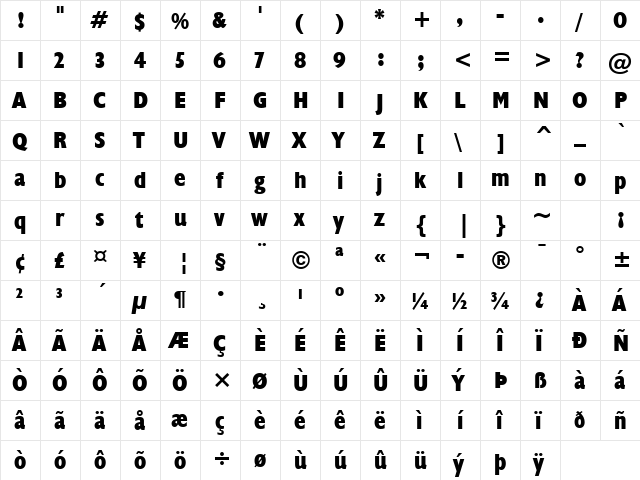
Humanst521 XBdCn BT Extra Bold
Design Context for Humanst521 XBdCn BT Typeface
Humanst521 XBdCn BT is a composed and adaptable typeface that performs quietly and consistently across a wide range of design contexts. The heavy weight commands attention and anchors typographic hierarchies.